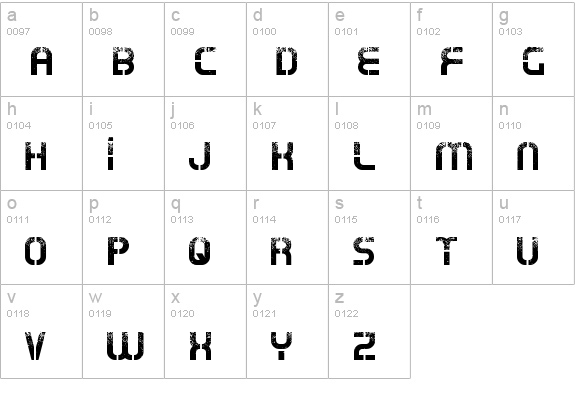
Oxin War Font Details
Introducing Oxin War, a powerful and captivating font that exudes strength and determination. With its bold and angular letterforms, Oxin War commands attention and makes a lasting impression. This font is perfect for projects that require a sense of authority and intensity, whether it's for gaming, sports, or branding purposes. What sets Oxin War apart is its unique ability to strike a perfect balance between ruggedness and sophistication. The sharp edges and precise lines give it an edge, while the carefully crafted details add a touch of refinement. This font is designed to make your message stand out and leave a lasting impact on your audience. But here's the best part – Oxin War is completely free! That's right, you can freely download this extraordinary font at FontsMarket.com. We believe that creativity should be accessible to all, and that's why we are thrilled to offer this remarkable typeface to everyone at no cost. Whether you're a designer looking to spice up your projects or an individual in search of a bold font for personal use, Oxin War is the perfect choice. Its versatility allows it to shine in various applications, from headlines and titles to posters and logos. With Oxin War, you have the power to create bold and impactful designs effortlessly. So, don't miss out on this opportunity to enhance your creative endeavors. Download Oxin War today for free at FontsMarket.com and unleash the full potential of your designs. Take command and make a statement with this striking font that will captivate and inspire your audience.